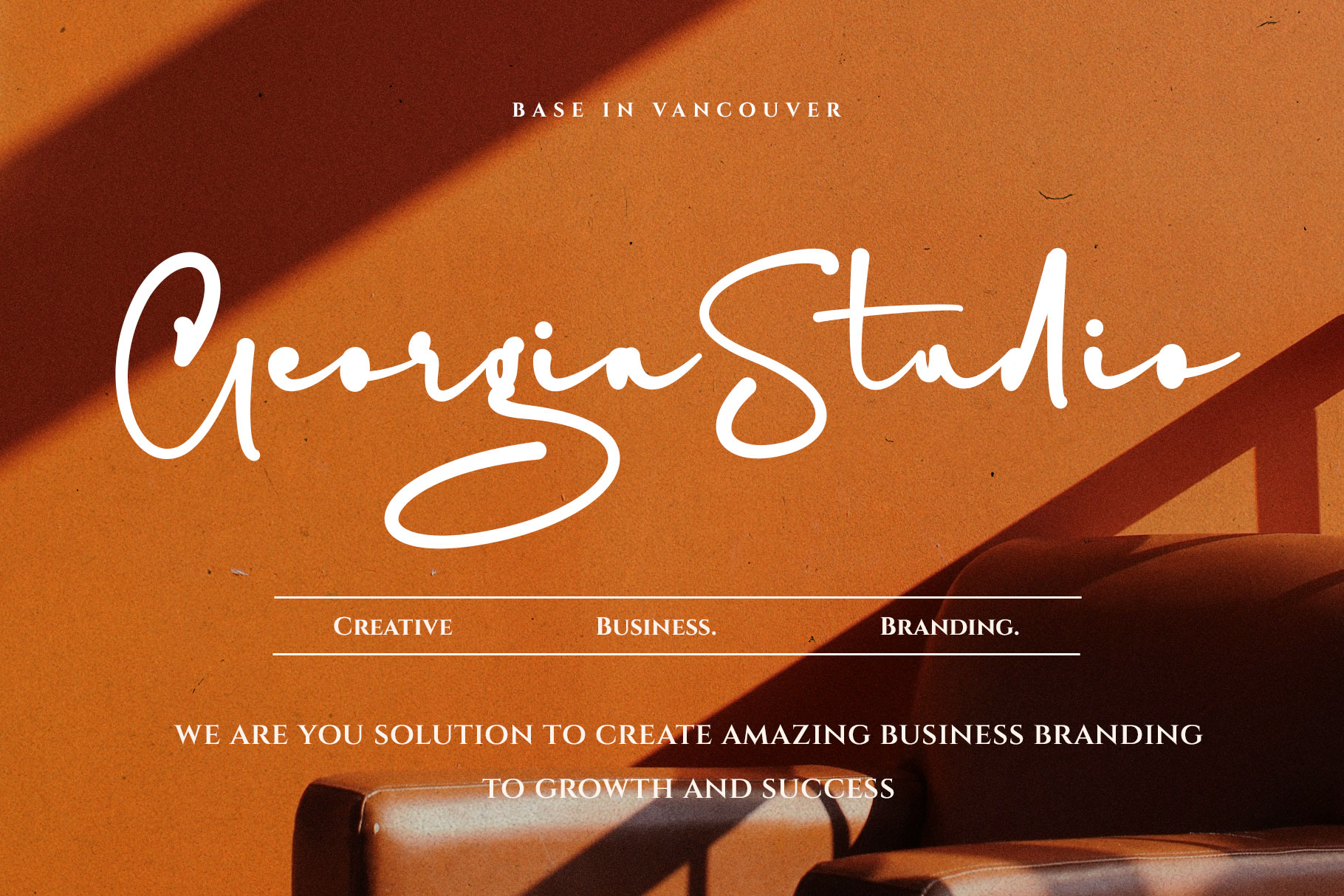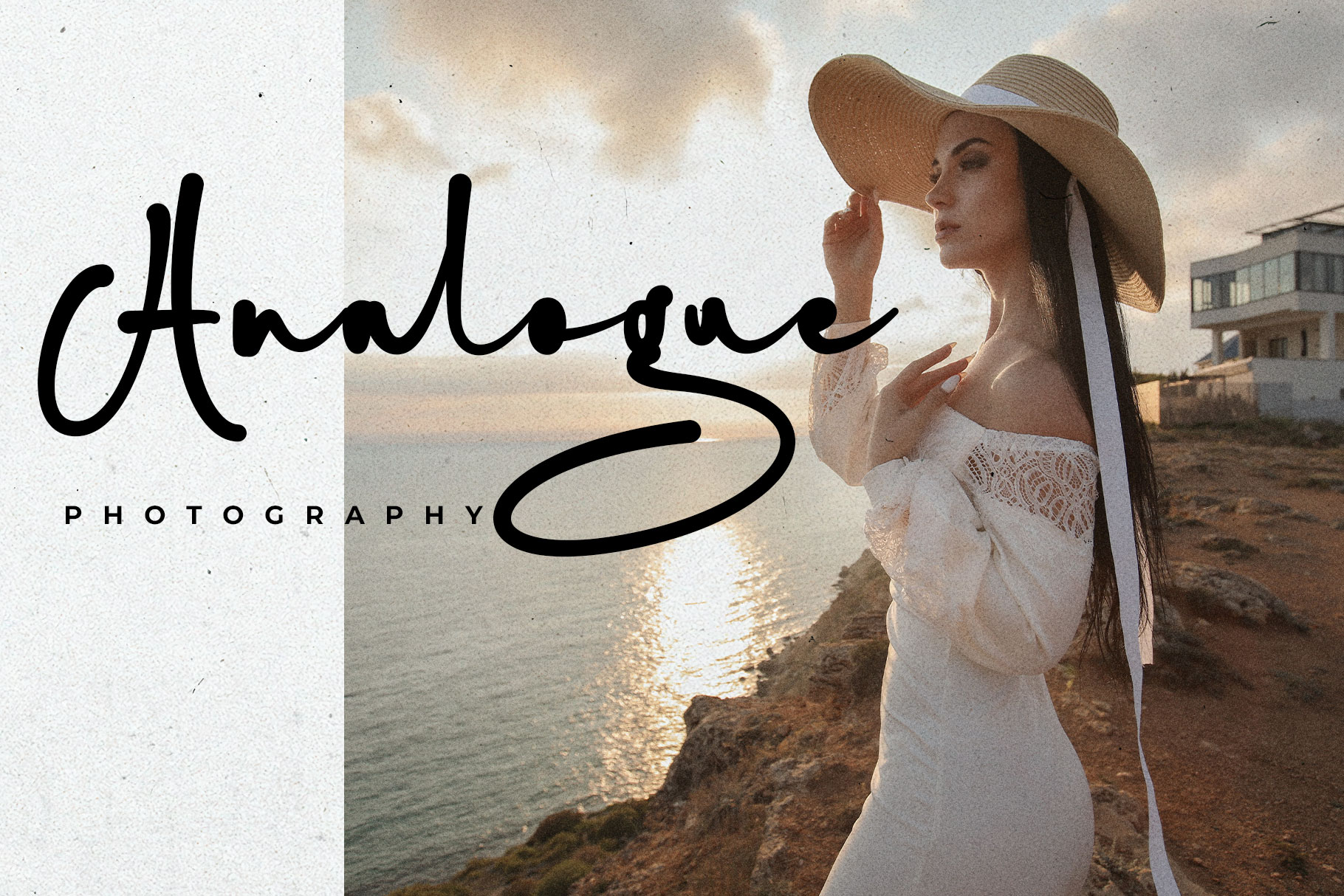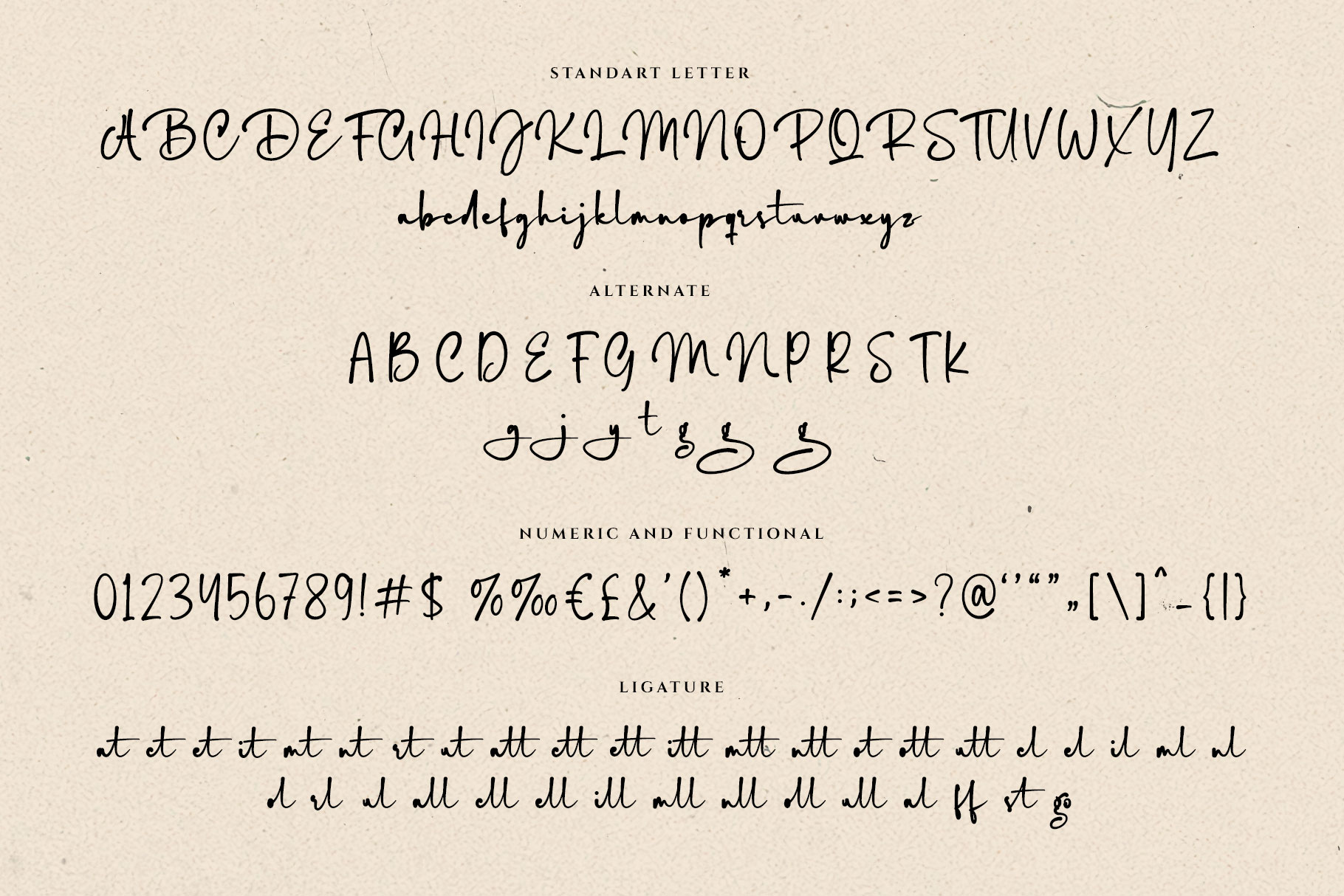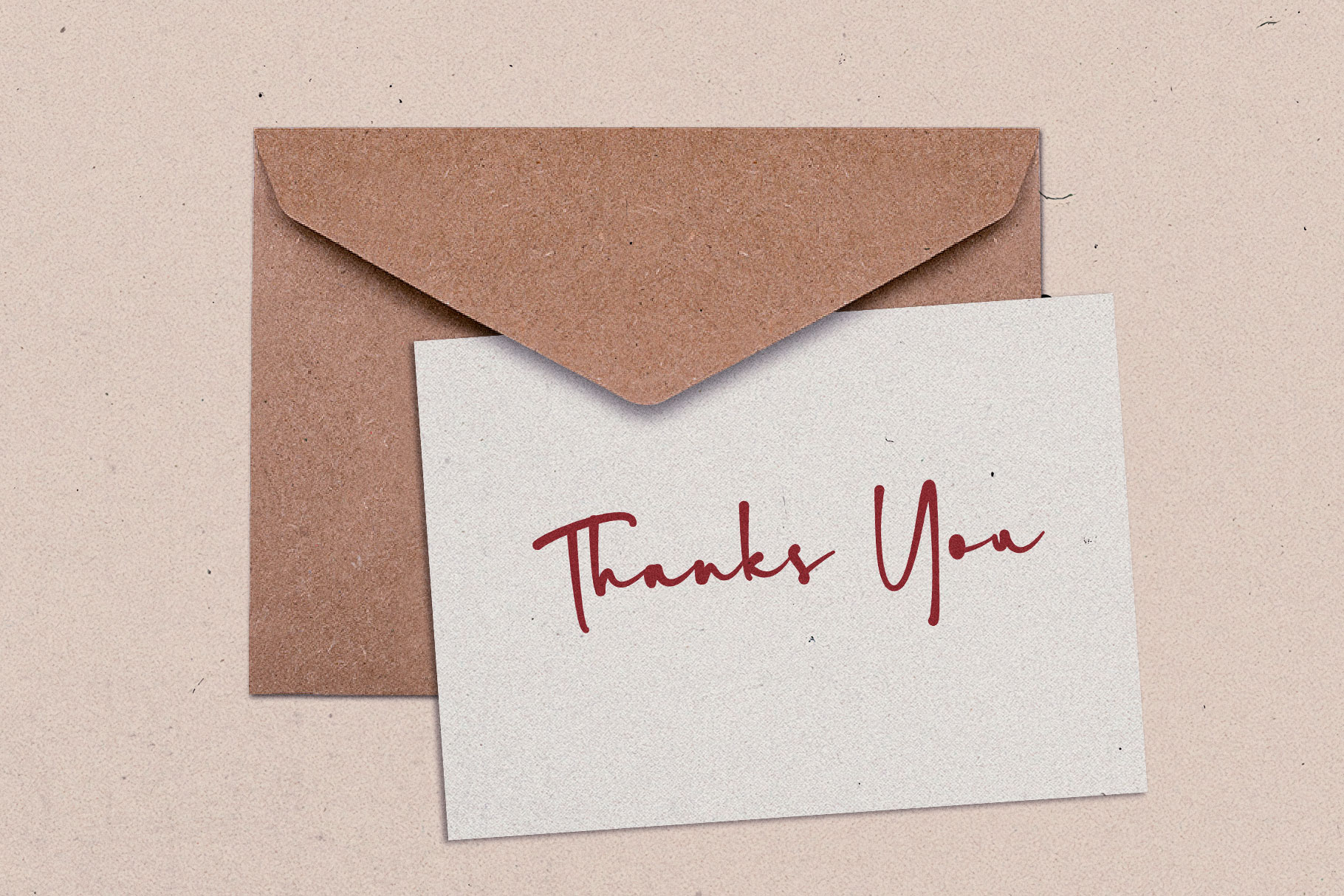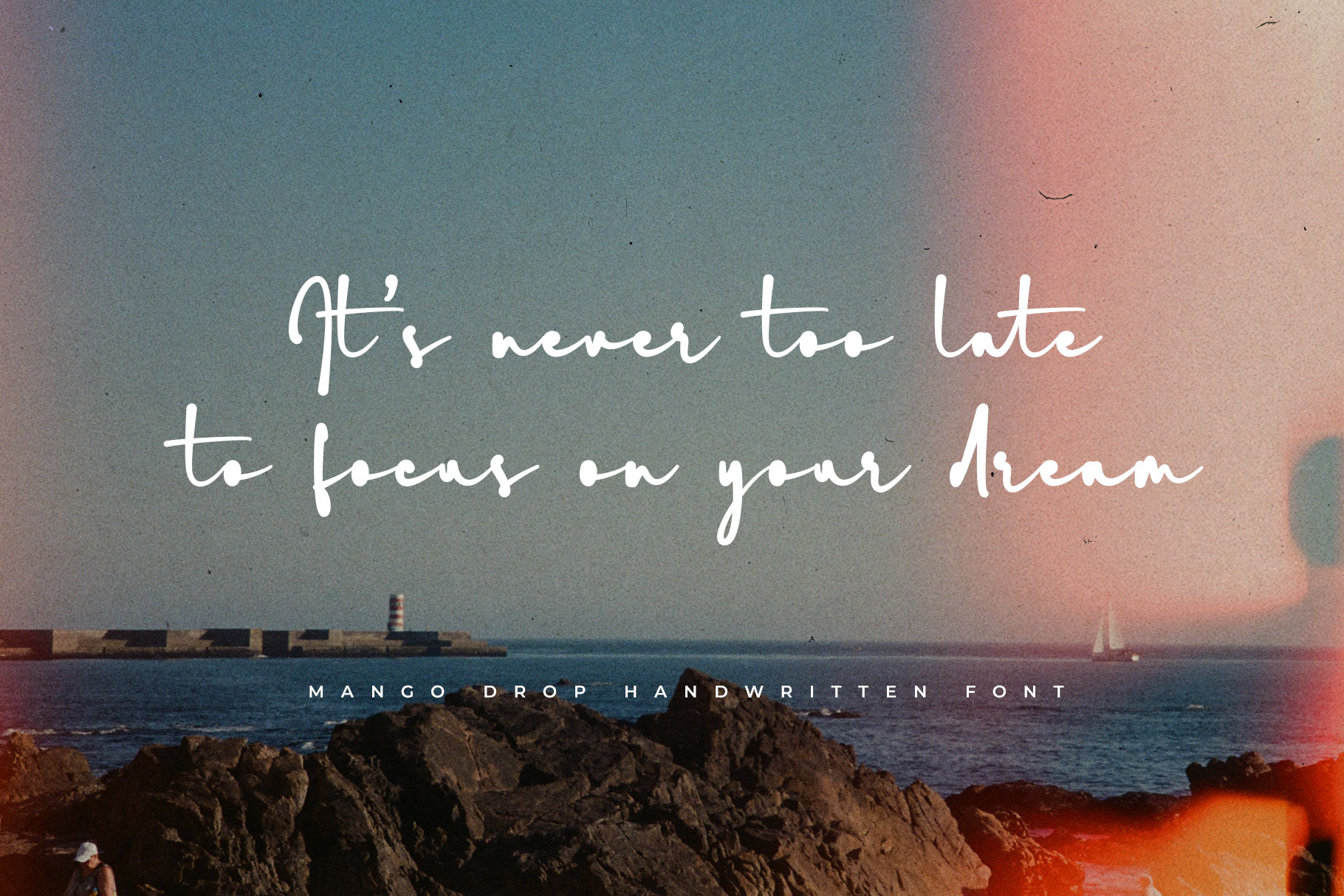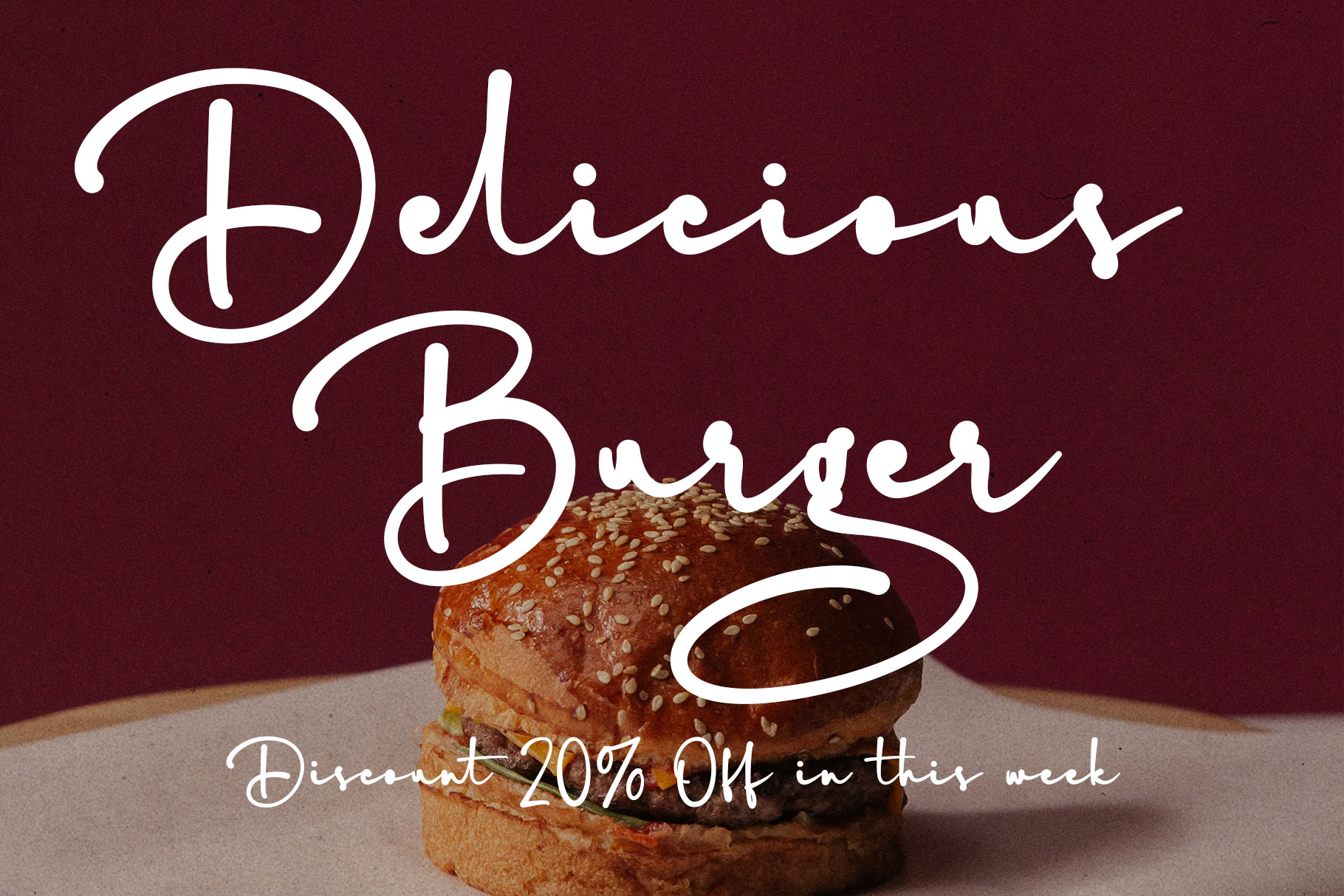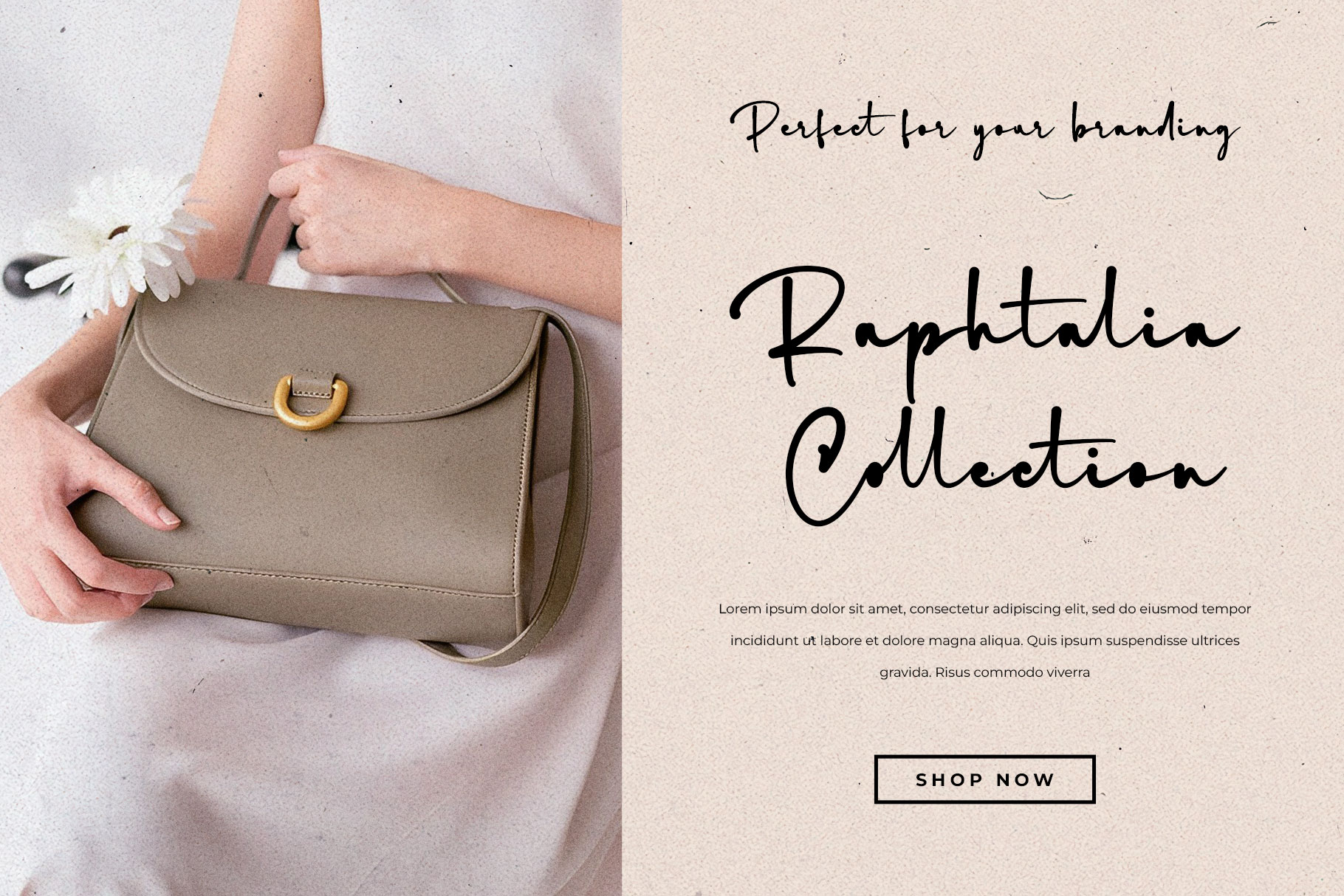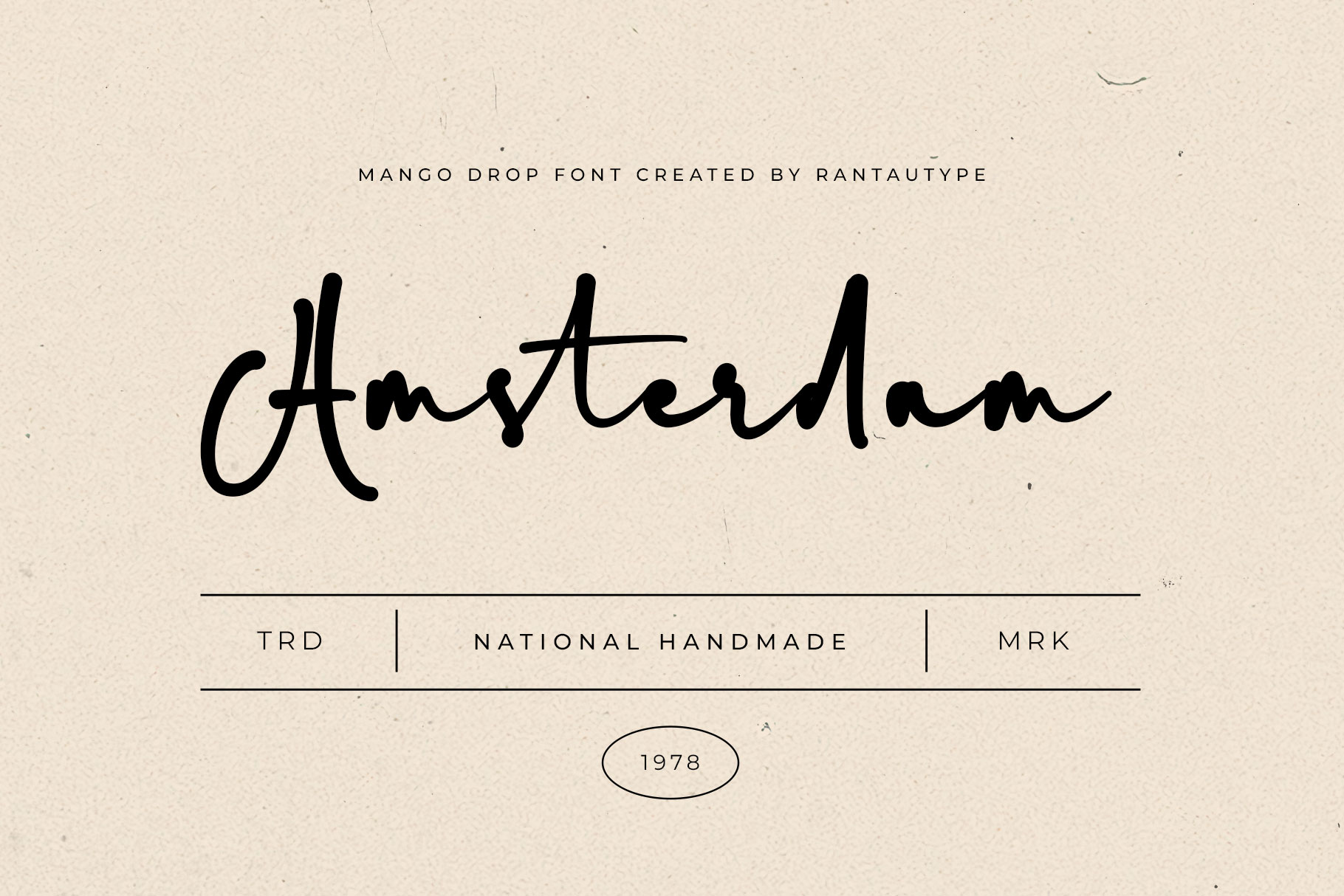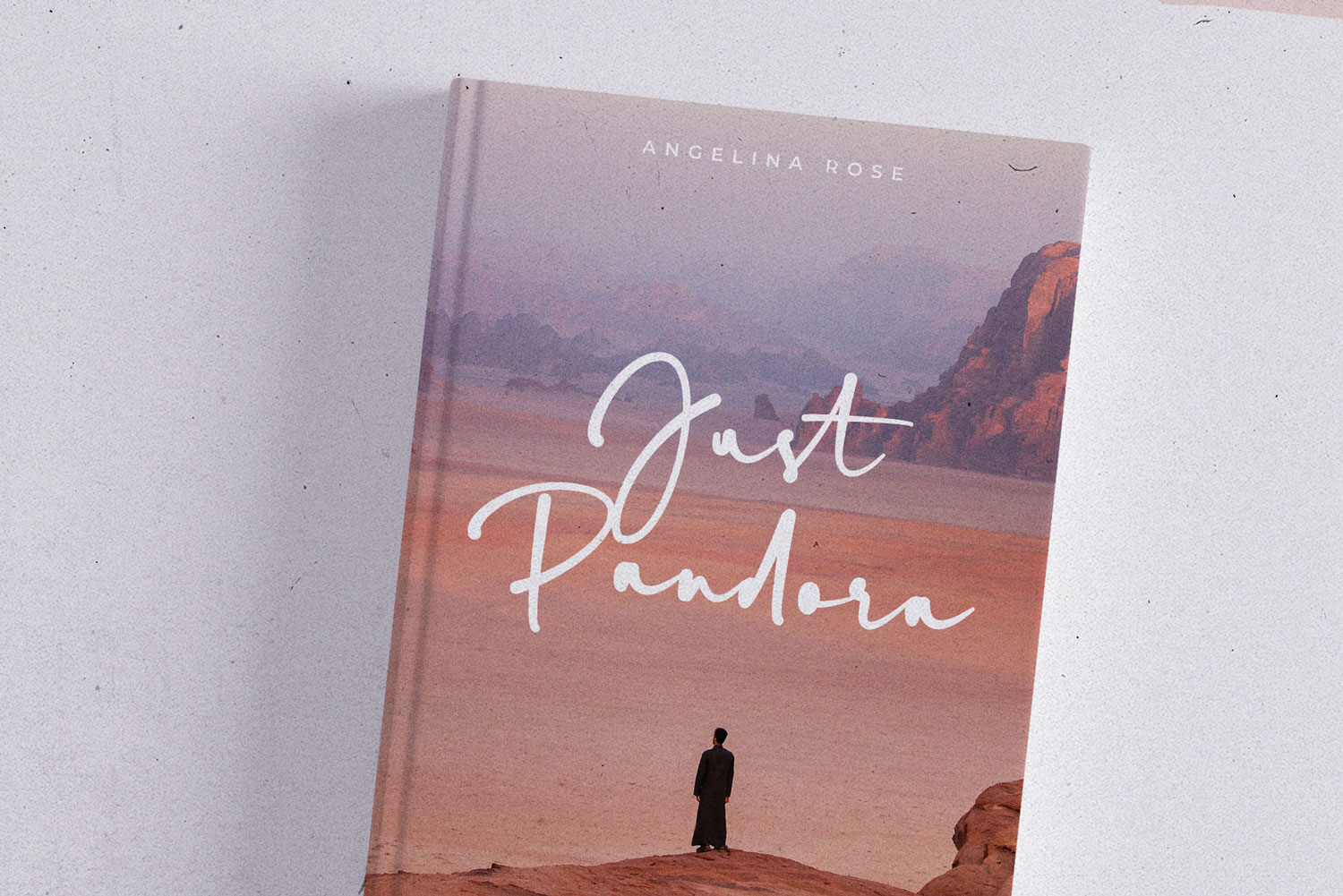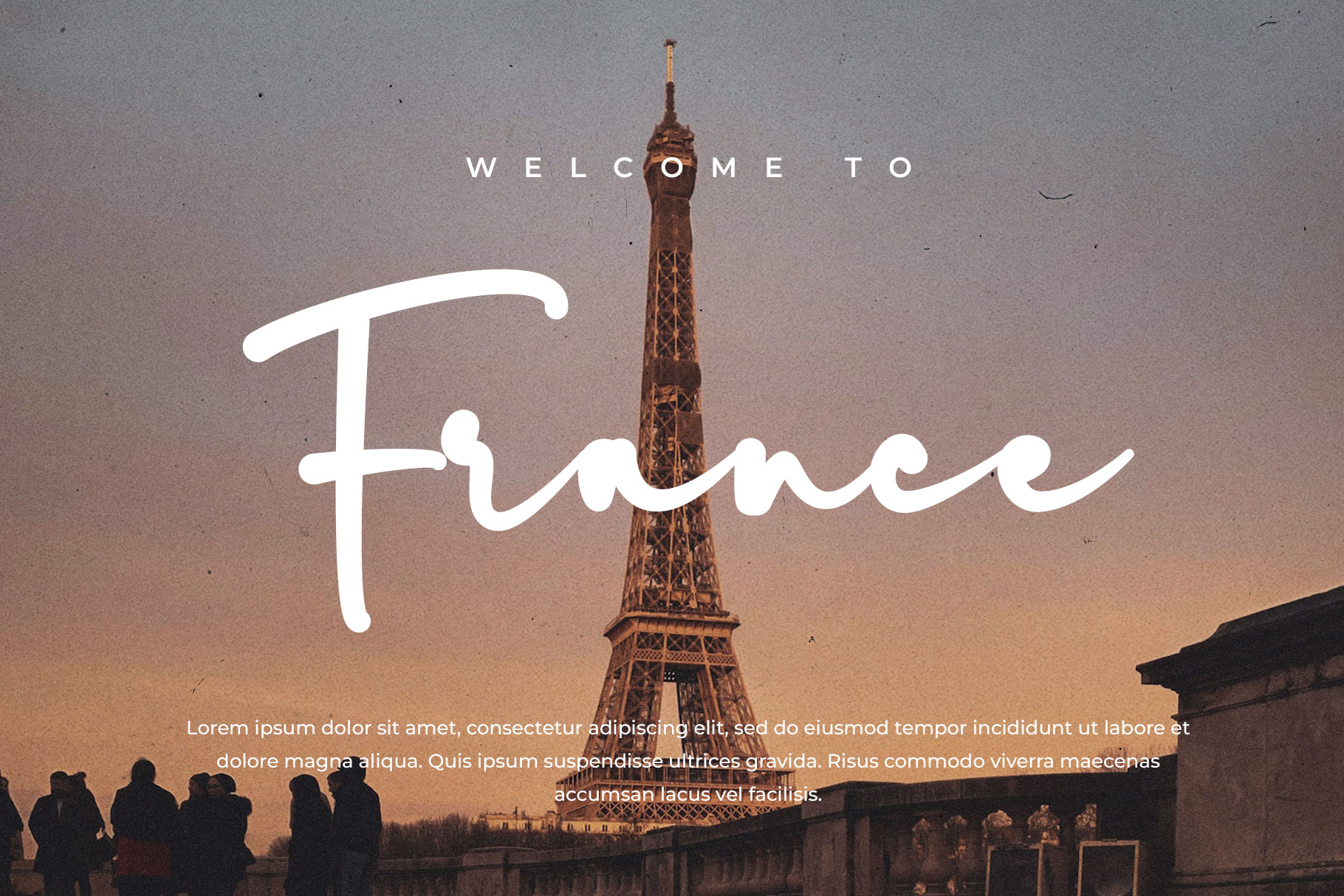
Mango Drop Modern Font
Mango Drop –  modern style font which can be interpreted professional. We keep this font looks modern, readable, stylish, catchy and easy to use. Mango Drop come with alternate, ligature and multilingual Support.
Mango Drop is a beautiful choice for any creative endeavor, chic, lifestyle design such as logos, title, watermark on photography, cover, branding, display and magazine, wedding event, quotes, album cover, business card and many other design project. Mango Drop here to make your work to high level!!!
• Ligature and swashes